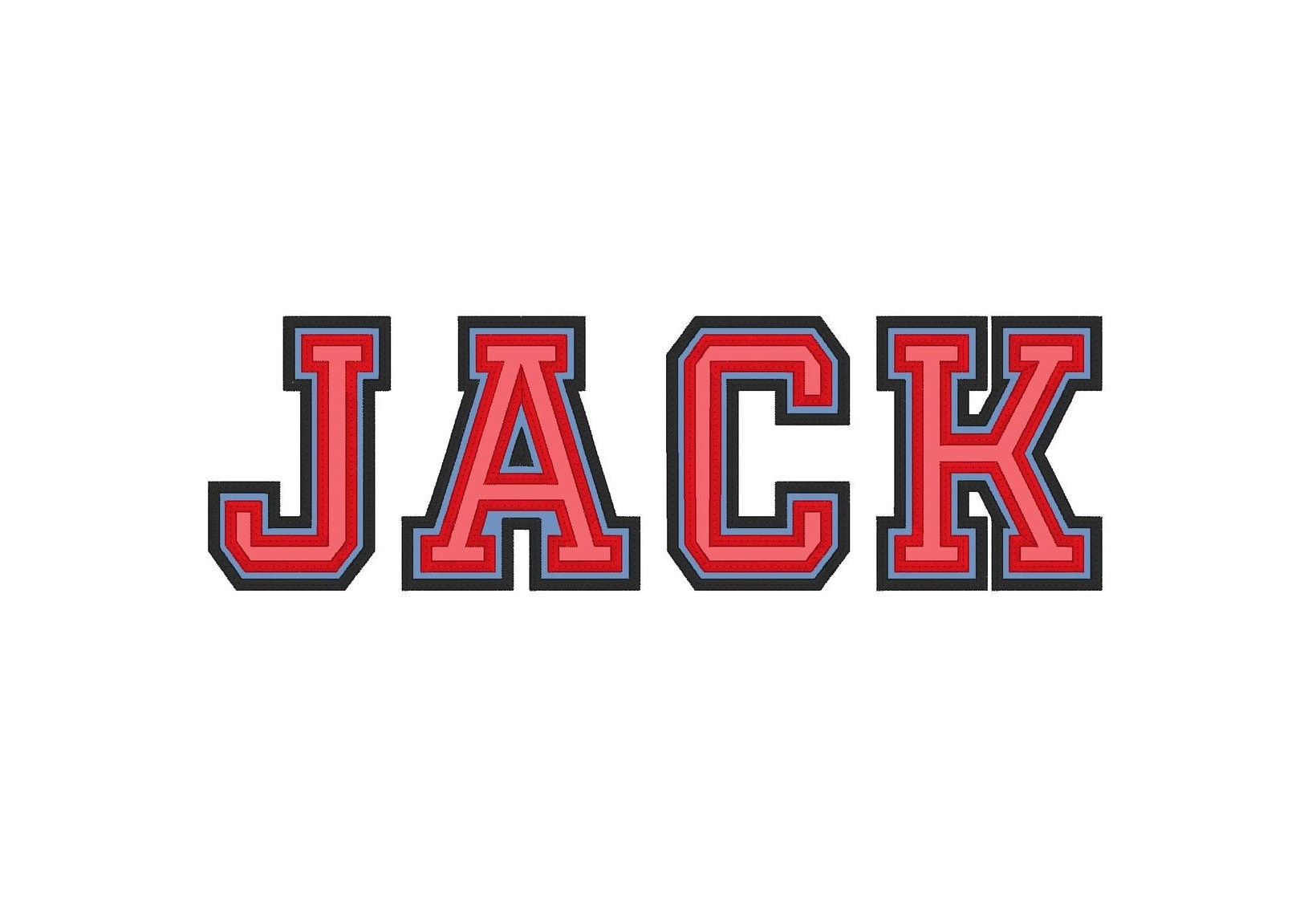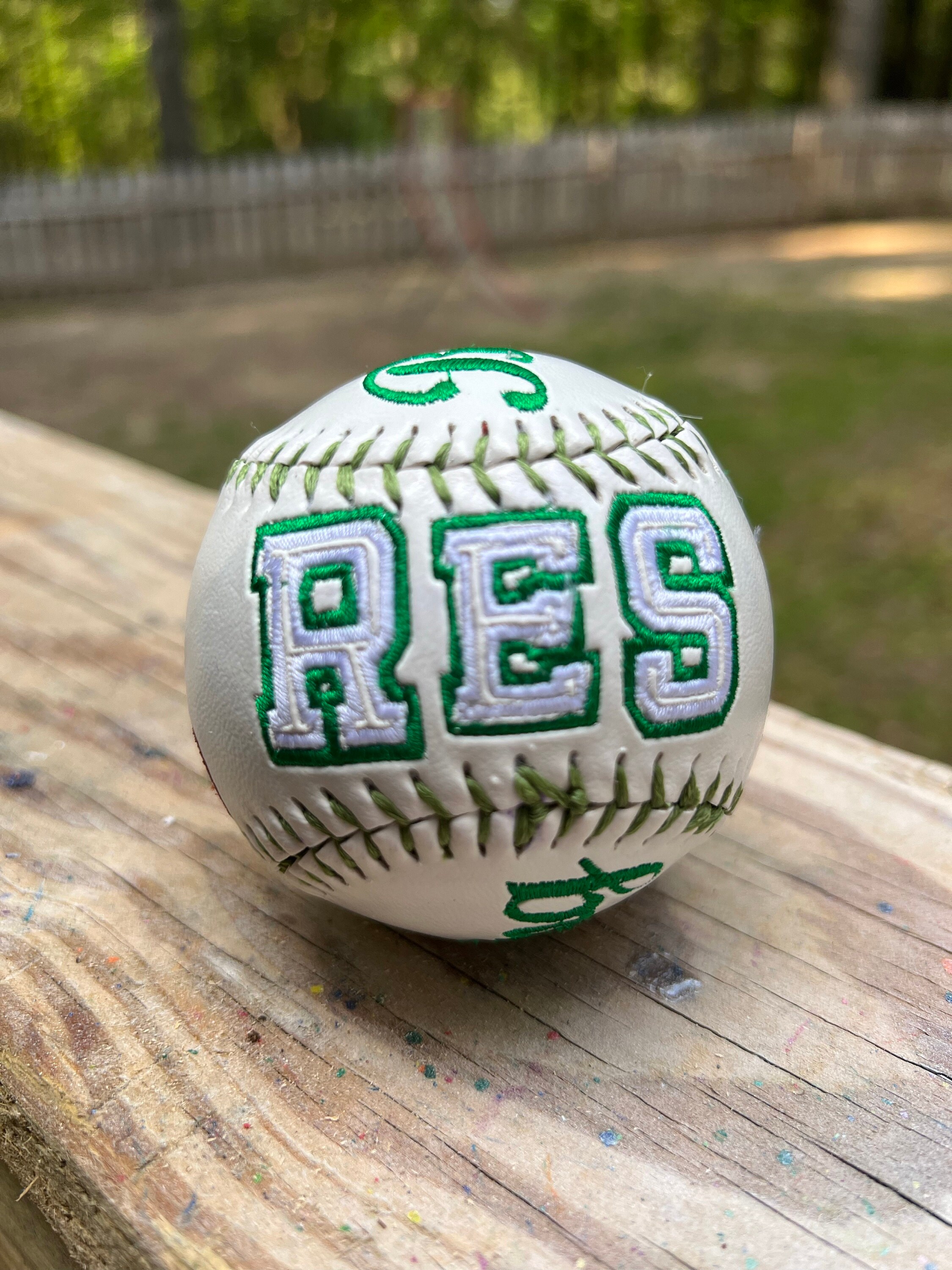
Sport two Applique Font Double outline applique alphabet letters machine embroidery designs multiple sizes from 2.5 up to 6in BX included
/ Two applique layers
/ Double outline sport font
/ Double applique
/ Two applique block sport font
Has wide nice wide satin stitch and top triple stitch on top for neat look and secure while washing. Can be skipped!